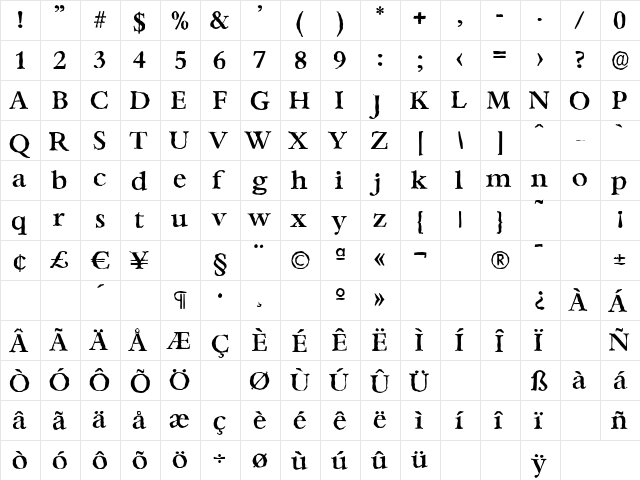
BernsteinAntique-Medium Regular
Design Context for BernsteinAntique-Medium Typeface
BernsteinAntique-Medium has the warm character of retro typography — evoking diners, record sleeves, and the golden age of print advertising.
Ideal for diner signage, record shop branding, 70s/80s-themed projects, and heritage product labels.
Font Pairing: Combine BernsteinAntique-Medium with a simple slab or neutral sans — period-accurate companions reinforce the vintage feel without competing for attention.
Pro Tip: Lean into BernsteinAntique-Medium's period character by pairing it with aged paper textures, muted colour palettes, and vintage illustration styles.